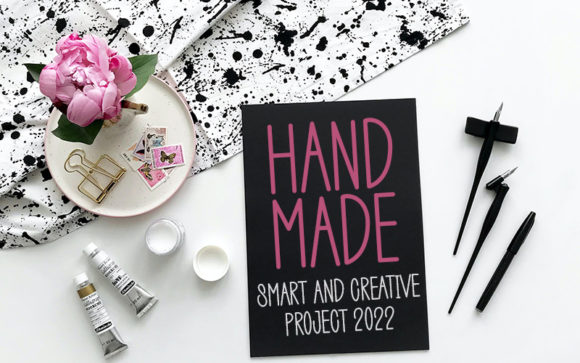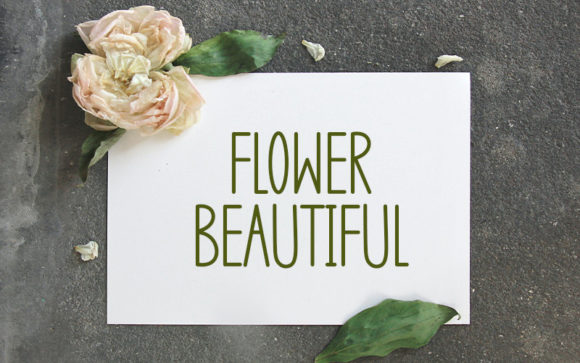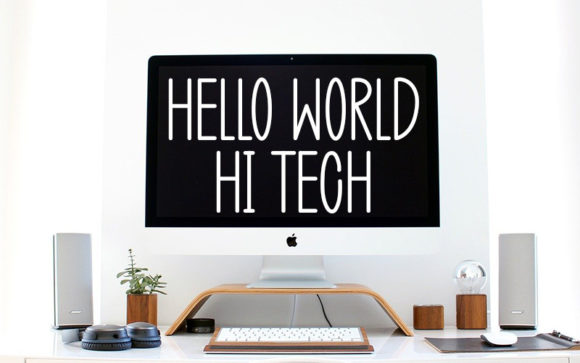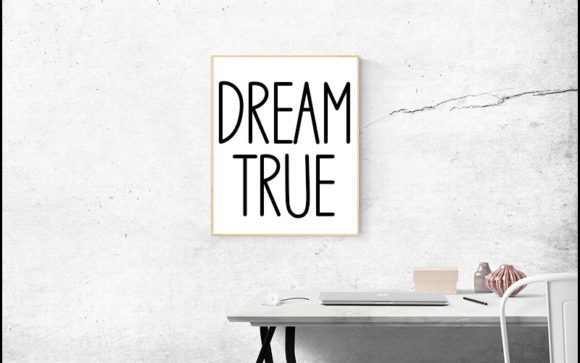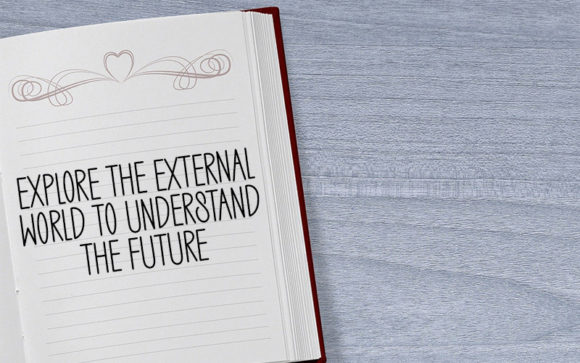
Introducing Bookline Font: The Ultimate Choice for Playful and Smart Designs
In the world of typography, fonts play a crucial role in making or breaking a design. A well-chosen font can elevate your brand’s visual identity, making it more recognizable and memorable. If you’re a designer, craft, or simply someone who loves to create, you’re in luck! Today, we’re excited to introduce Bookline Font, a playful and smart-looking sans serif font that’s perfect for creating eye-catching logos, branding, and quotes.
What Makes Bookline Font Special?
Bookline Font is not just another ordinary font. Its unique and beautiful touch sets it apart from the rest. Every letter has been carefully crafted to give your design a fresh and lively feel. Whether you’re working on a logo, brochure, or social media graphics, Bookline Font is the perfect choice. Its playful and smart look makes it versatile enough to be used in various design projects, from children’s books to business branding.
Key Features of Bookline Font
- Playful and Smart-Looking: Bookline Font boasts a unique blend of playfulness and sophistication, making it perfect for designs that require a bit of personality.
- Sans Serif: The clean and modern sans serif design ensures that your text is easy to read, even at smaller font sizes.
- Unique Lettering: Each letter in Bookline Font has been carefully designed to add a touch of beauty and elegance to your designs.
- Versatile: From logos and branding to quotes and social media graphics, Bookline Font is the perfect choice for a wide range of design projects.
Why Choose Bookline Font?
With so many fonts available, why choose Bookline Font? Here are just a few reasons why designers and crafters love Bookline Font:
- Easily Readable: The clean design and clear lettering make it easy for readers to focus on your message.
- Highly Versatile: Bookline Font can be used in a variety of design projects, from fun and playful to professional and corporate.
- Unique and Eye-Catching: The beautiful and unique lettering ensures that your design stands out from the crowd.
- Time-Saving: With Bookline Font, you can create stunning designs in no time, thanks to its easy-to-use and highly legible design.
How to Use Bookline Font in Your Designs
Using Bookline Font in your designs is easy! Here are a few tips to get you started:
- Pair it with Other Fonts: Experiment with pairing Bookline Font with other fonts to create a unique and eye-catching design.
- Play with Colors: Bookline Font looks great in a variety of colors, so don’t be afraid to experiment and find the perfect hue for your design.
- Use it for Headings and Titles: Bookline Font is perfect for headings and titles, thanks to its bold and playful design.
In conclusion, Bookline Font is a versatile and beautiful sans serif font that’s perfect for designers, crafters, and anyone who loves to create. Its unique and eye-catching design makes it the perfect choice for creating stunning logos, branding, and quotes. With its highly legible design and playful look, Bookline Font is sure to elevate your designs to the next level. So why wait? Download Bookline Font today and start creating your own stunning designs!
- Is Bookline Font suitable for body text?
- While Bookline Font is perfect for headings and titles, it may not be the best choice for body text due to its playful design.